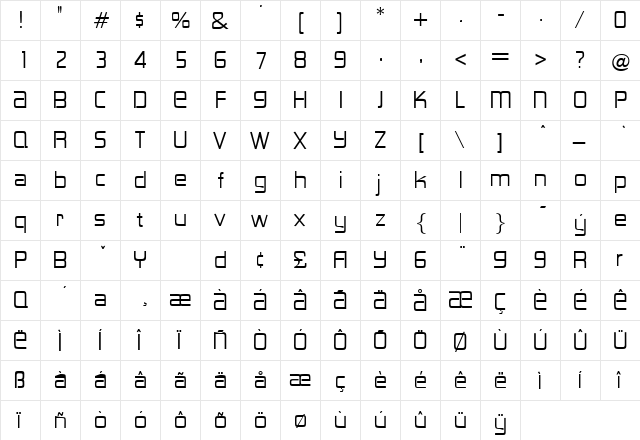
Lancester DB Regular
Design Context for Lancester DB Typeface
Lancester DB offers clean, dependable letterforms without strong stylistic allegiance, making it a practical choice for designers who need flexibility.